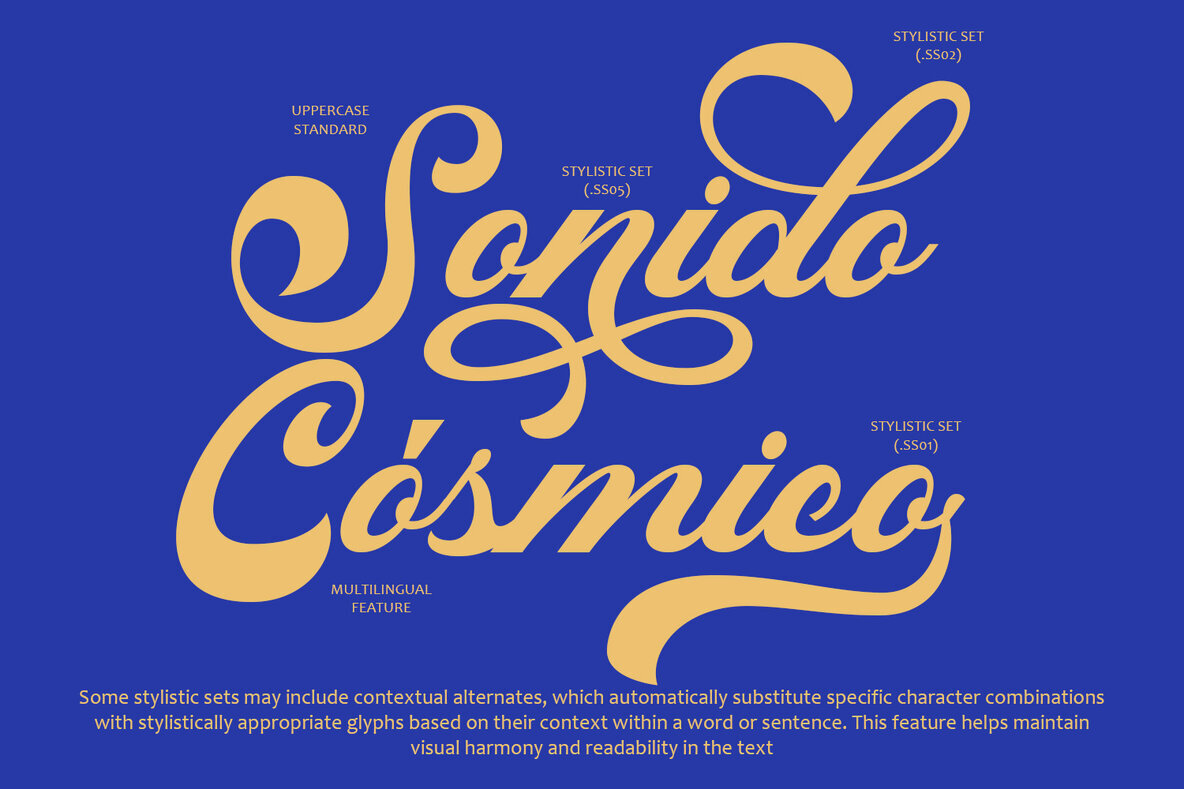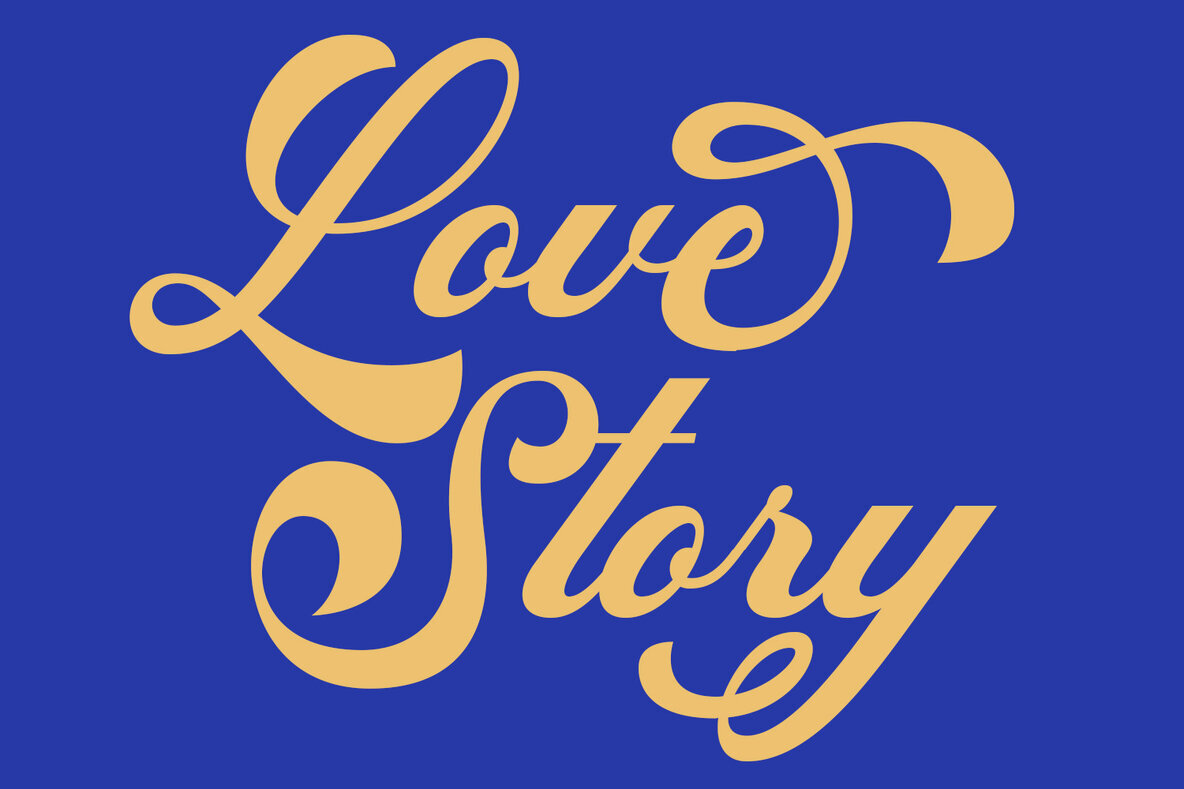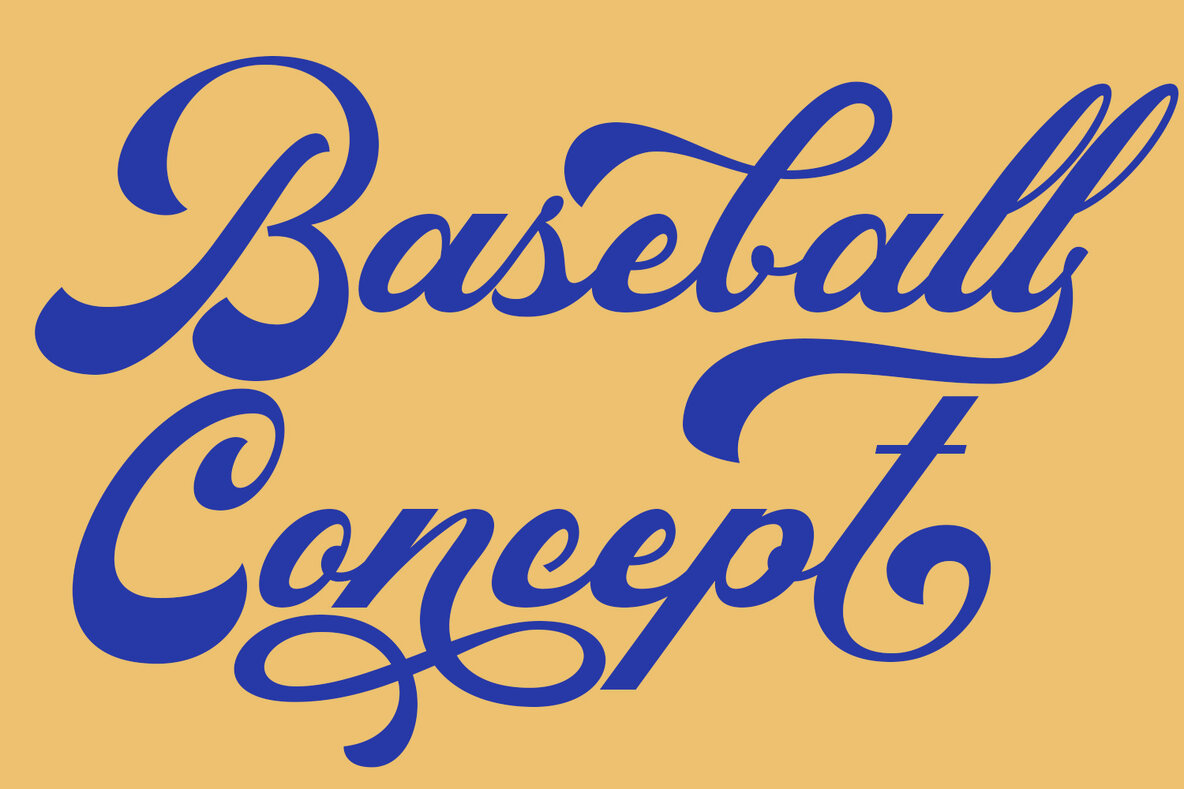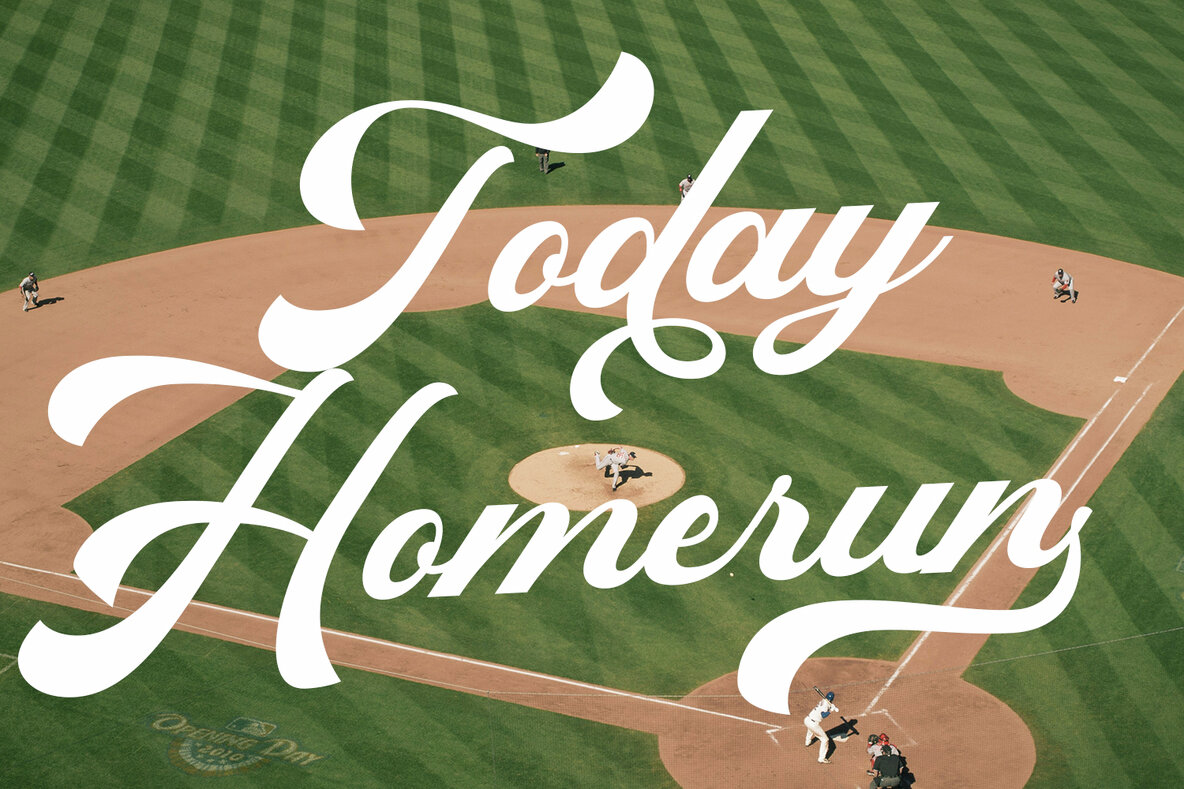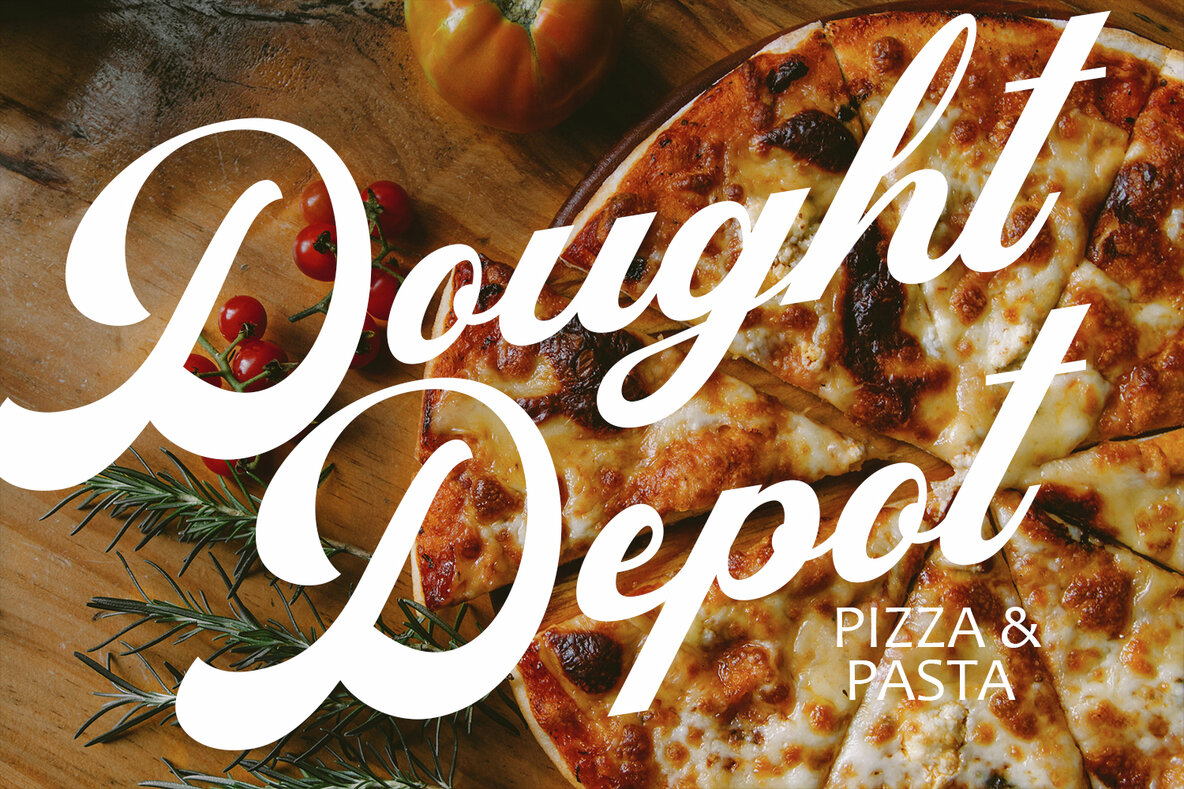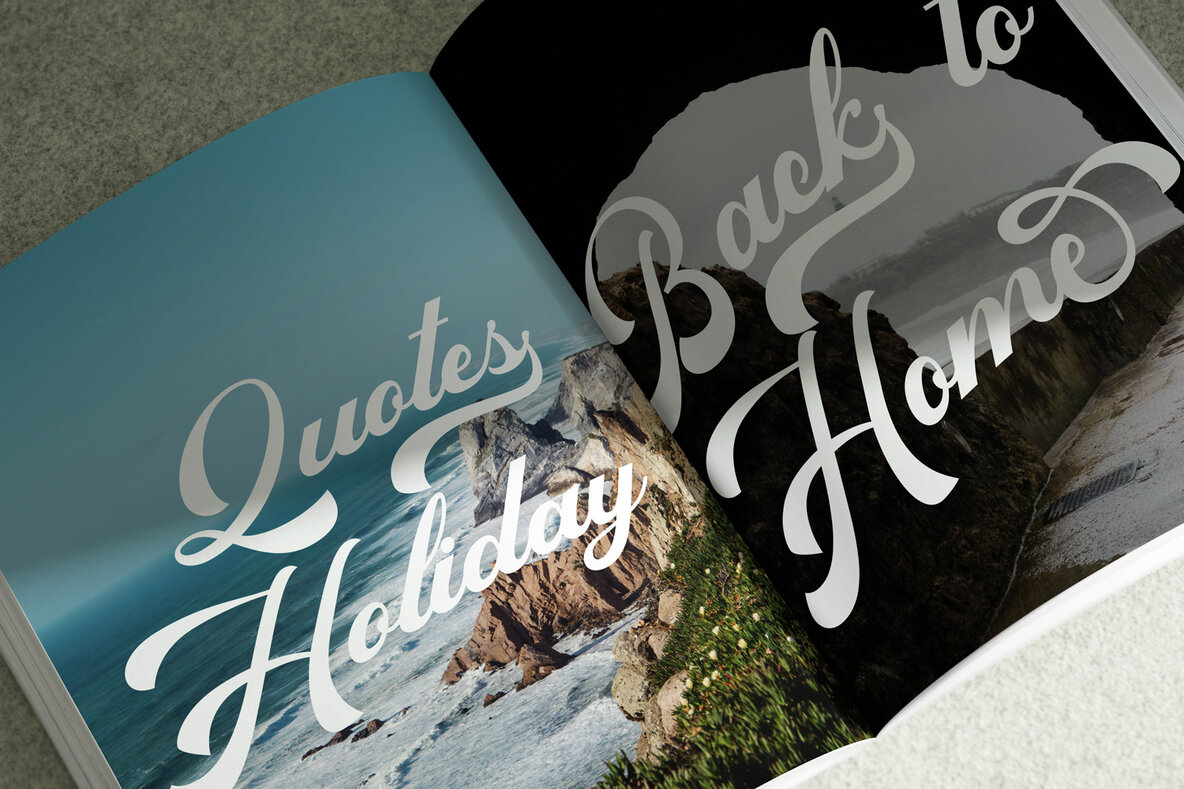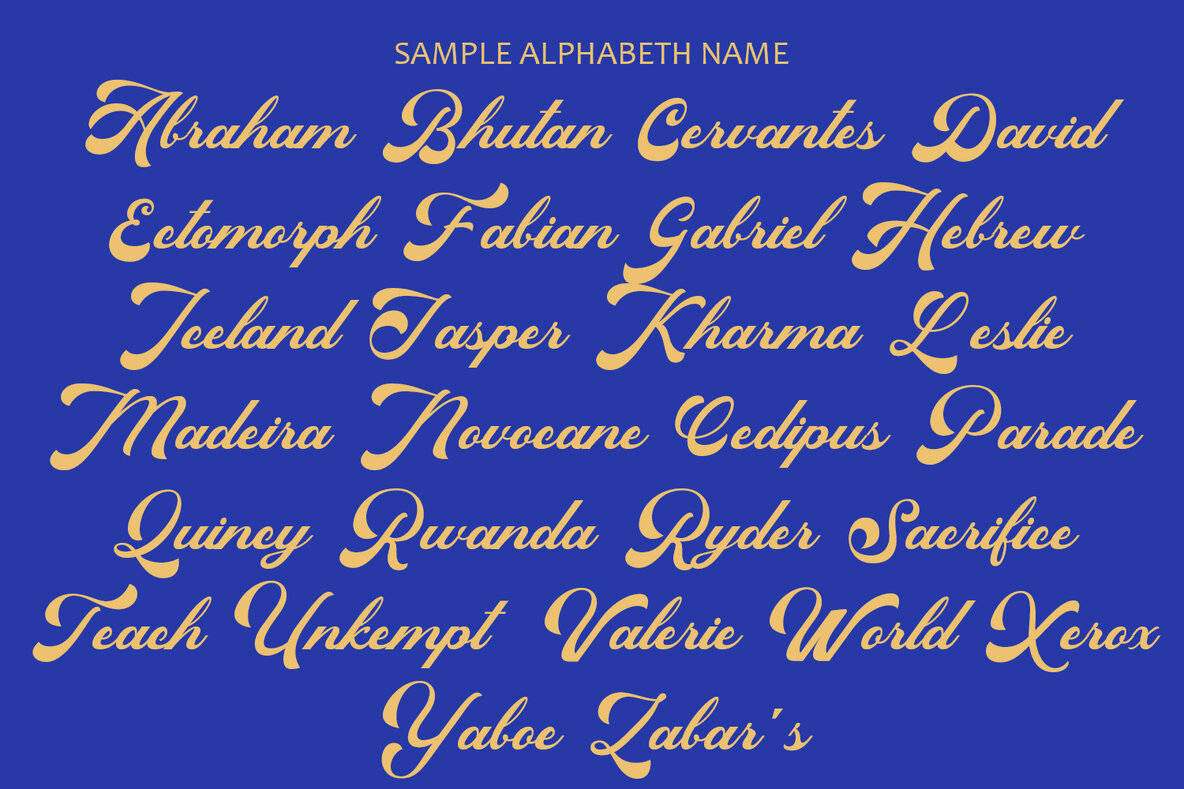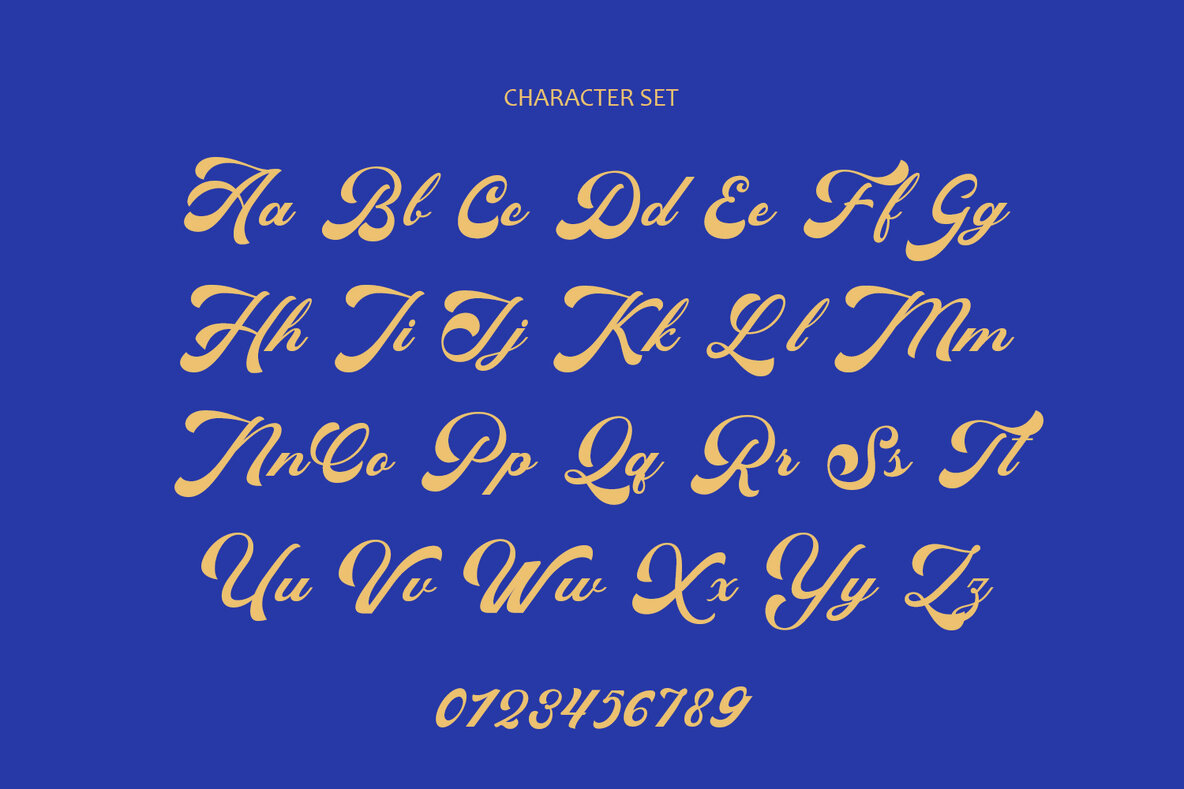
Complaint Font
Complaint
"Complaint" is a striking bold script font designed to command attention with its assertive letterforms and strong, thick strokes. Perfect for headlines, titles, and prominent text, each character exudes authority and presence. The dynamic contrast between thick and thin strokes adds visual interest, ensuring the text is both impactful and easy to read.
Despite its powerful appearance, "Complaint" retains an expressive and elegant touch through its flowing curves and subtle details. It is versatile enough for branding, packaging, advertising, and more, adding strength and confidence to any project while maintaining readability even at smaller sizes. The distinctive style of "Complaint" sets it apart from other bold fonts, making it a memorable choice for designers aiming to leave a lasting impression.